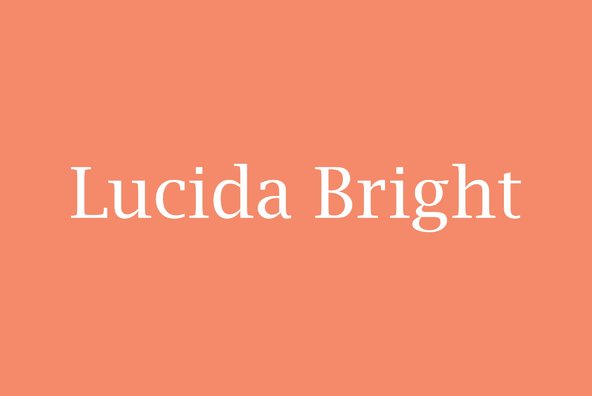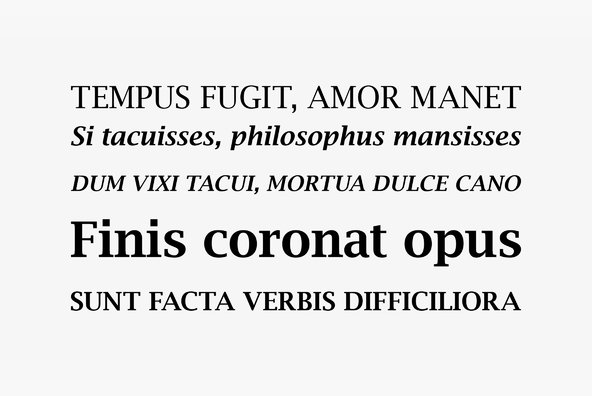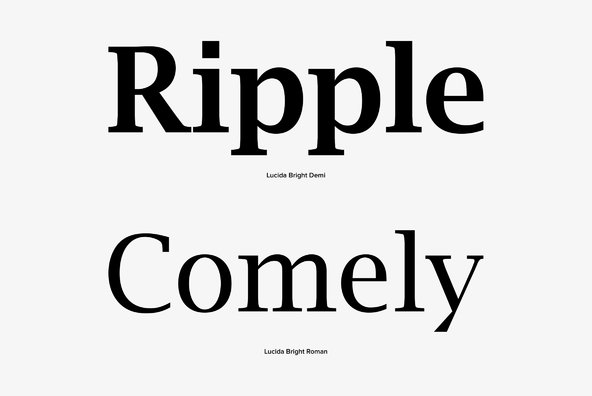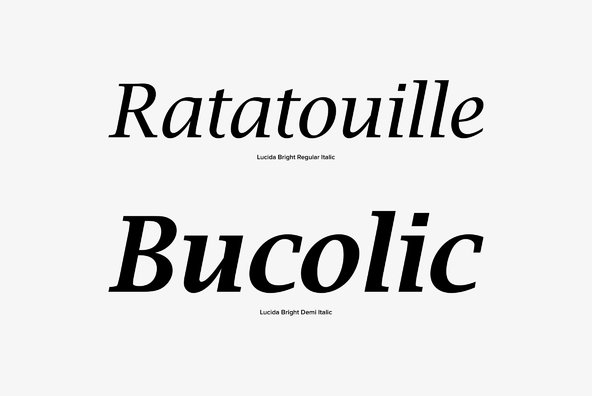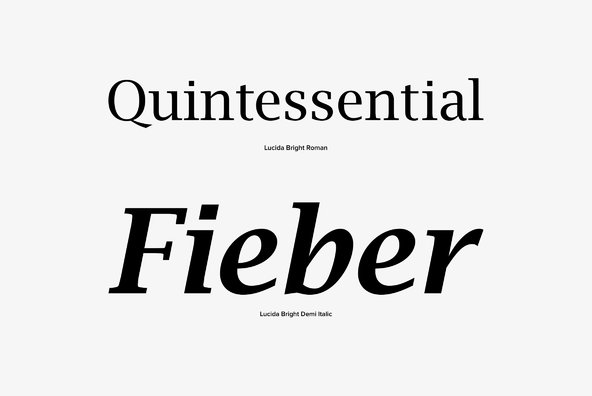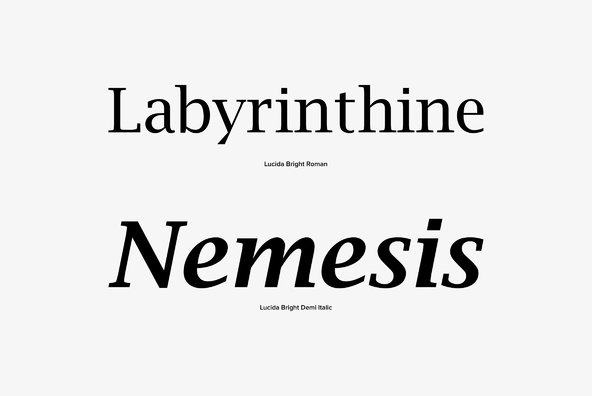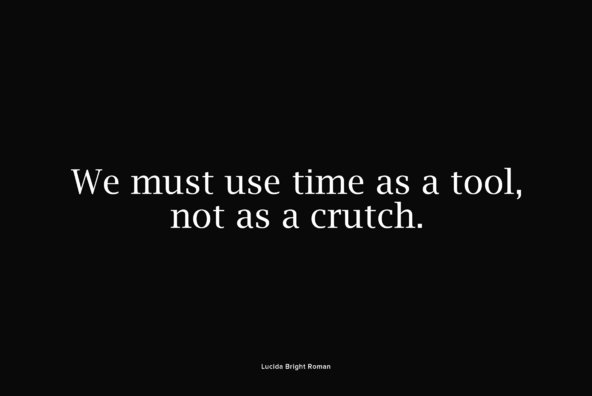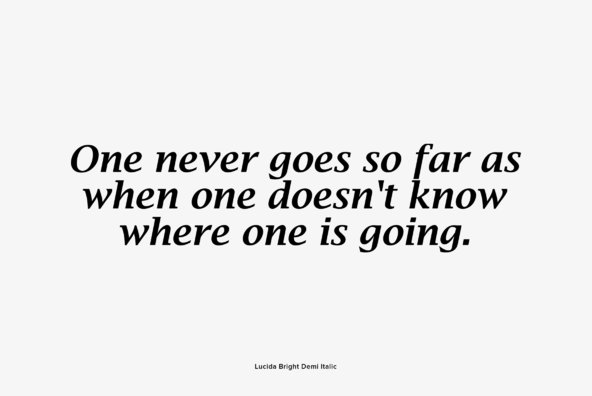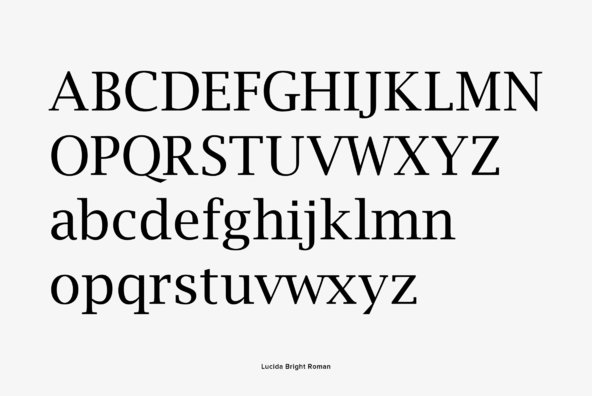
Designed by Charles Bigelow and Kris Holmes in 1993, Lucida Bright is a clean serif design released by URW. Contains language support for West, East, Turkish, Baltic, and Romanian.